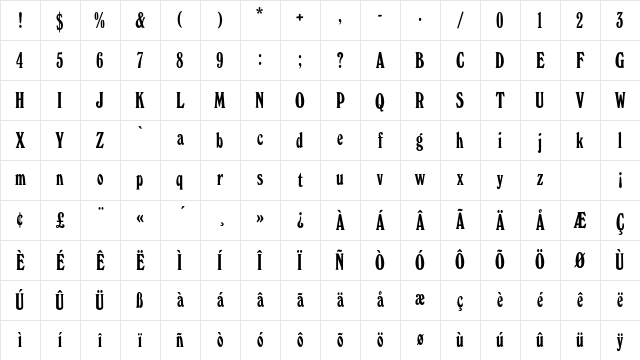
WindsorEF-Elongated Regular
Design Context for WindsorEF-Elongated
WindsorEF-Elongated is a composed and adaptable typeface that performs quietly and consistently across a wide range of design contexts.